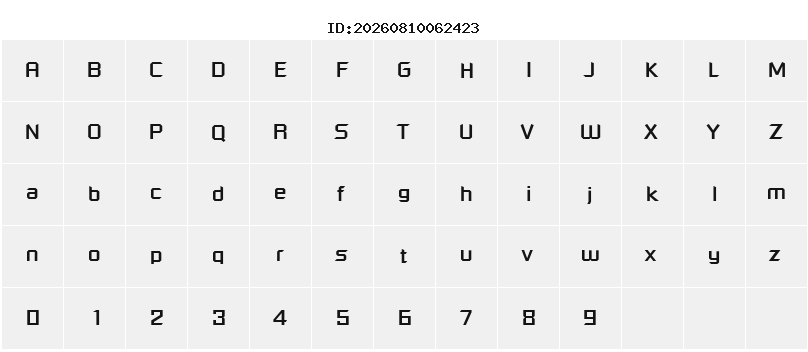
• Font Name: PSL Advert
• Full Font Name: PSL Advert Regular
About PSL Advert.ttf
PSL Advert.ttf is a modern, elegant sans-serif font designed for ultimate readability and visual harmony. Perfect for branding, headlines, web design, and print materials.